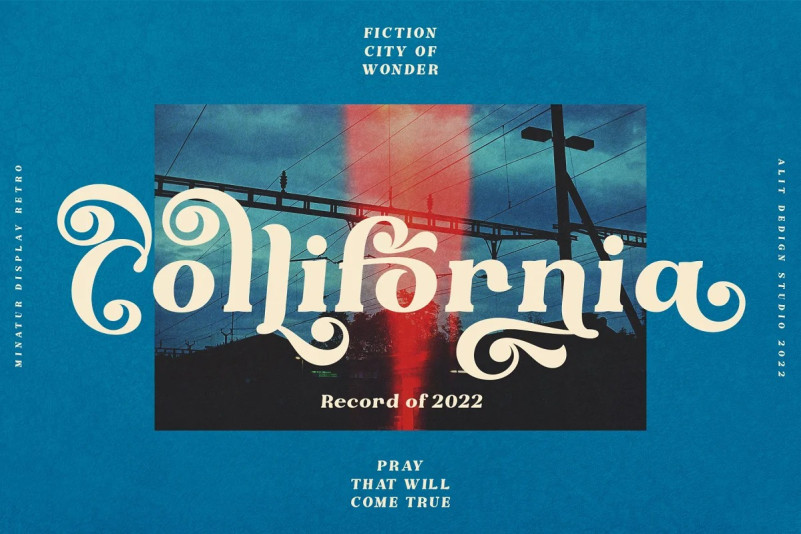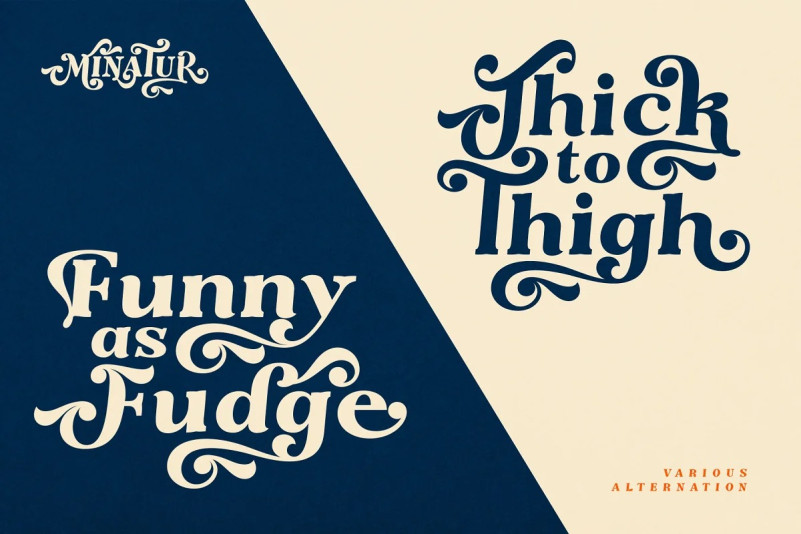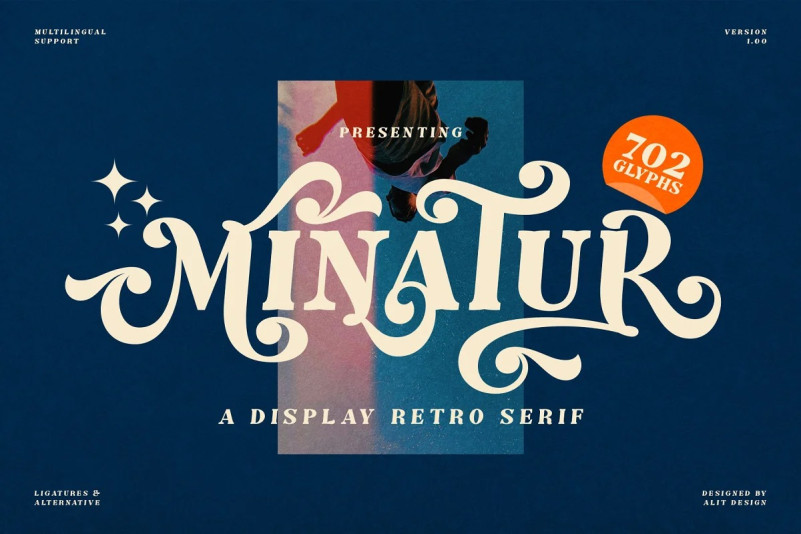
Minatur Font
The Minatur Font by alitdesign, is inspired by stylish designs from the 80s to 90s. At that time the font style like “The Minatur Typeface” had a firm and trendy impression. The Minatur Typeface has a wide selection of alternative characters and swashes that make it easy to create bold retro-style designs.
The Minatur Typeface is very suitable for making designs with retro concepts, simple and playful designs, for example making magazine cover designs, music covers, YouTube thumbs, text headers, logotypes and so on with an elegant retort theme. Besides that this font is very easy to use both in design and non-design programs because everything changes and glyphs are supported by Unicode (PUA).
The Minatur Typeface has a total of 702 glyphs including symbol, multilingual.